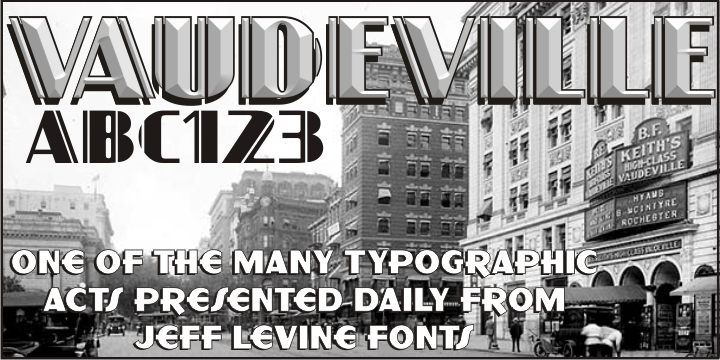
Vaudeville
Vaudeville JNL started out as the re-drawing of an angular Art Deco font hand-lettered on some old publications for sale online. After completing the basic alphabet, it was realized that it just didn't look good…so a more traditional letter form was adapted to represent the style and times.
Vaudeville JNL Regular by Jeff Levine Fonts